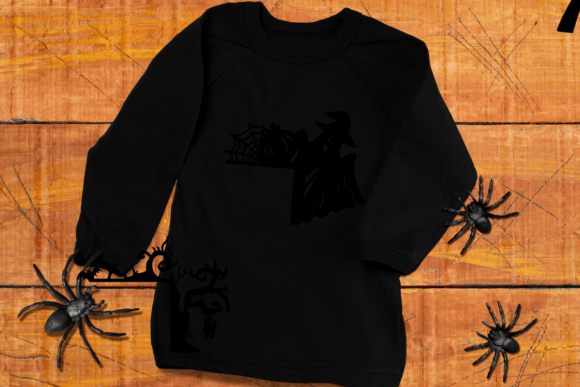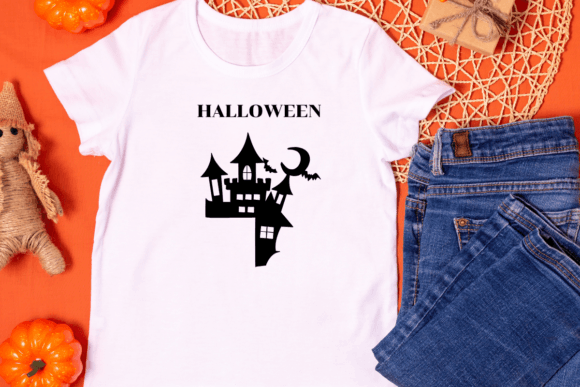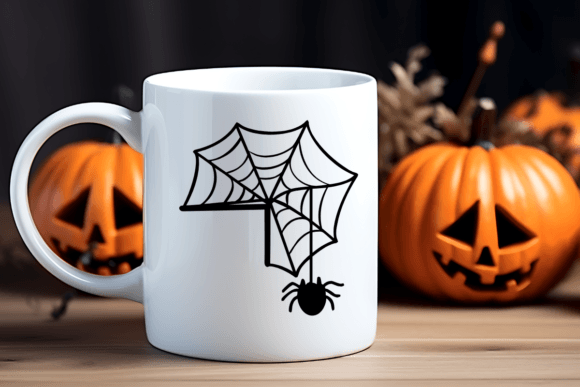
Unleash Your Creativity with the Spooky Charm of Halloween Doorway Font
As a designer, have you ever found yourself staring at a blank page, waiting for that spark of inspiration to strike? Maybe it’s the thrill of a new project, or the challenge of bringing a client’s vision to life. Whatever it is, you know that feeling when everything comes together in perfect harmony. For those moments, you need a font that can add a touch of magic to your creations.
Enter the enchanting Halloween Doorway Font, a dingbats font that embodies the spooky spirit of the season. With its hauntingly beautiful characters, this font is perfect for wedding invitations, DIY projects, crafts, decorations, logos, and any other creative idea that needs a dash of Halloween charm. Whether you’re a seasoned designer or a crafty enthusiast, the Halloween Doorway Font is an invaluable addition to your toolkit.
Halloween Doorway Font Key Features
- Unique Gothic-inspired design with eerie and mysterious feel, perfect for Halloween-themed projects.
- Includes 100+ glyphs, including uppercase and lowercase letters, numbers, and special characters, to create a wide range of spooky messages.
Halloween Doorway Font Review
I recently had the chance to work with the “Halloween Doorway Font” and here’s my honest review.
- The font has a unique and spooky vibe that’s perfect for Halloween-themed projects.
- The font is highly customizable, with options to adjust the size, color, and spacing of the text.
- The font only includes uppercase letters, which may be a limitation for projects that require lowercase text.
- The font may not be suitable for small-scale text, as the letters can appear distorted or pixelated.
Overall, I was impressed with the “Halloween Doorway Font” and its unique style and customization options. However, its limitations may make it less suitable for certain projects. With some adjustments and additions, this font has the potential to be a real showstopper for Halloween-themed designs.